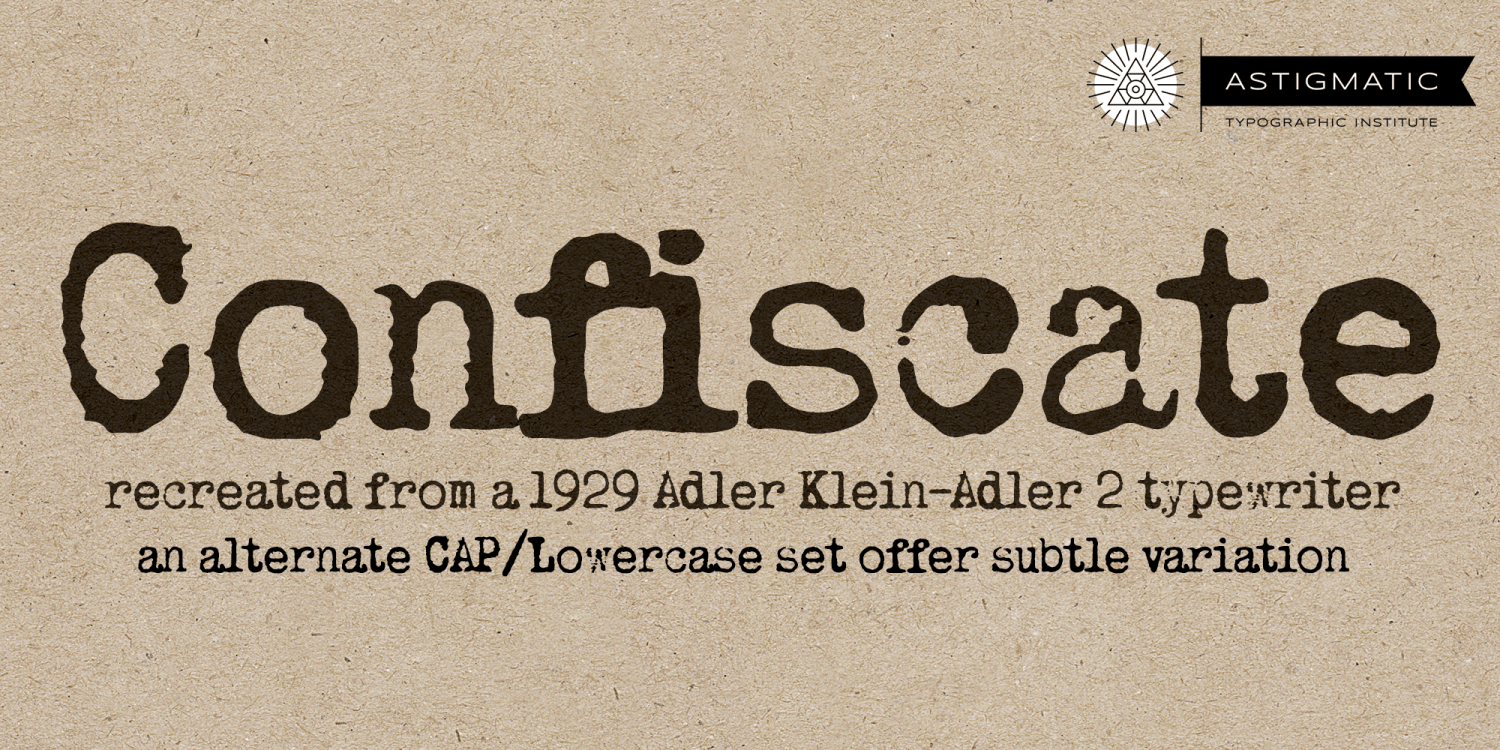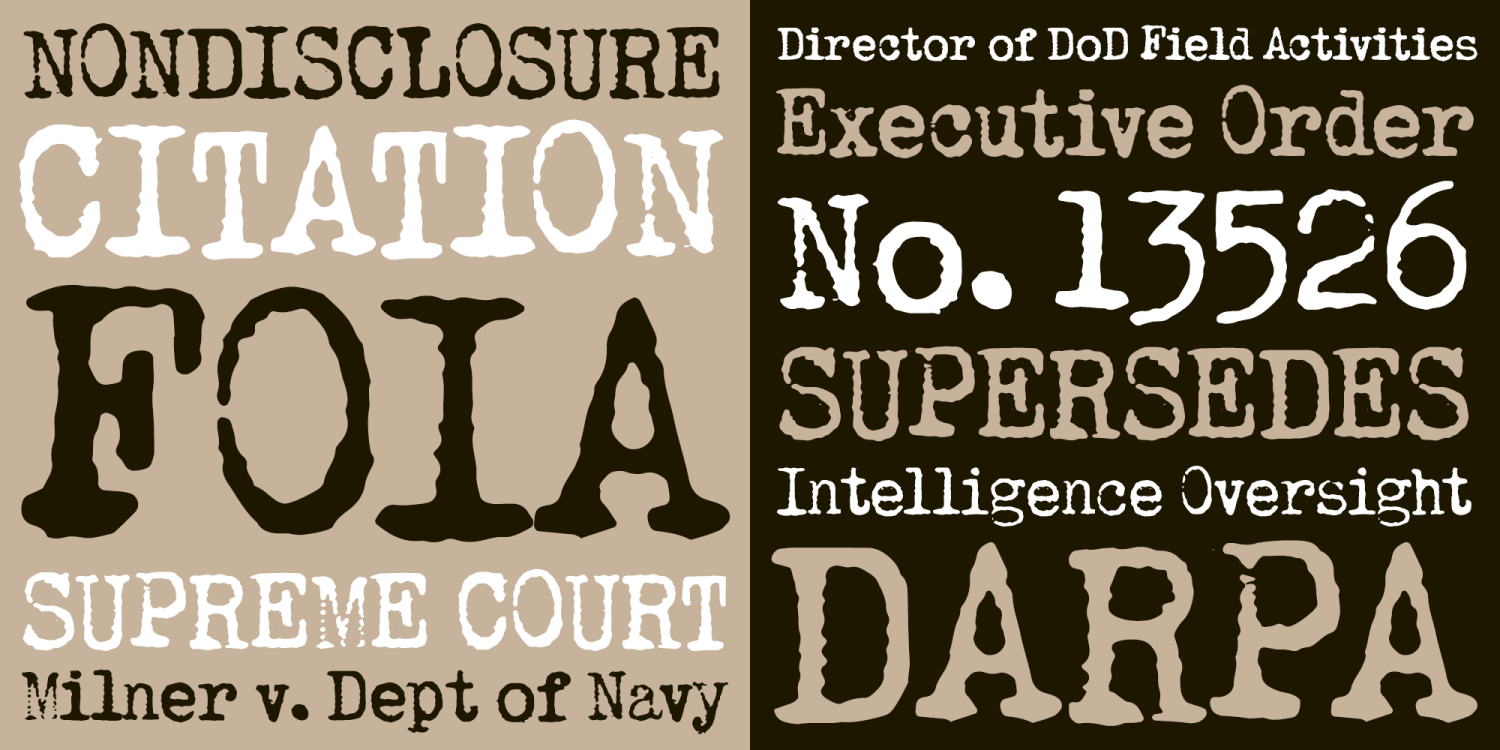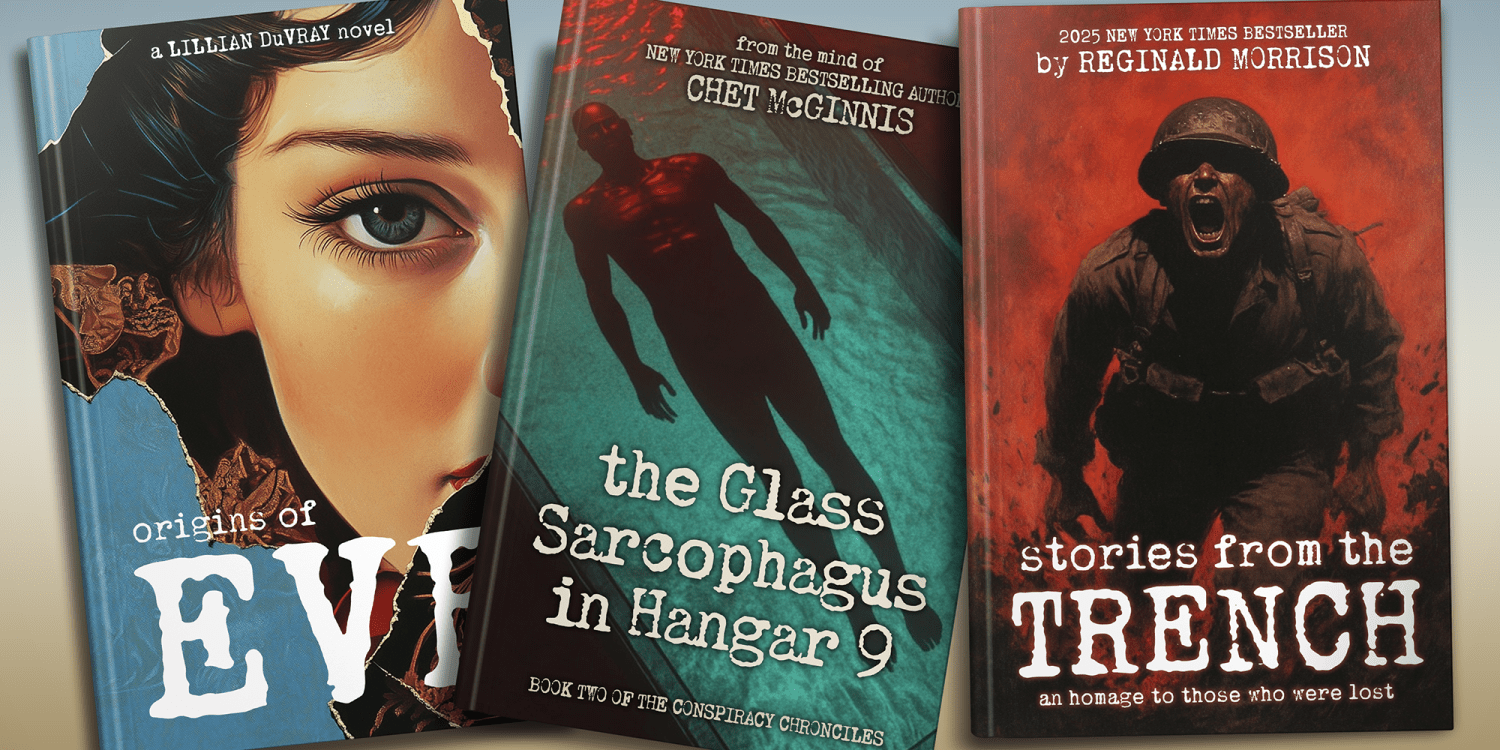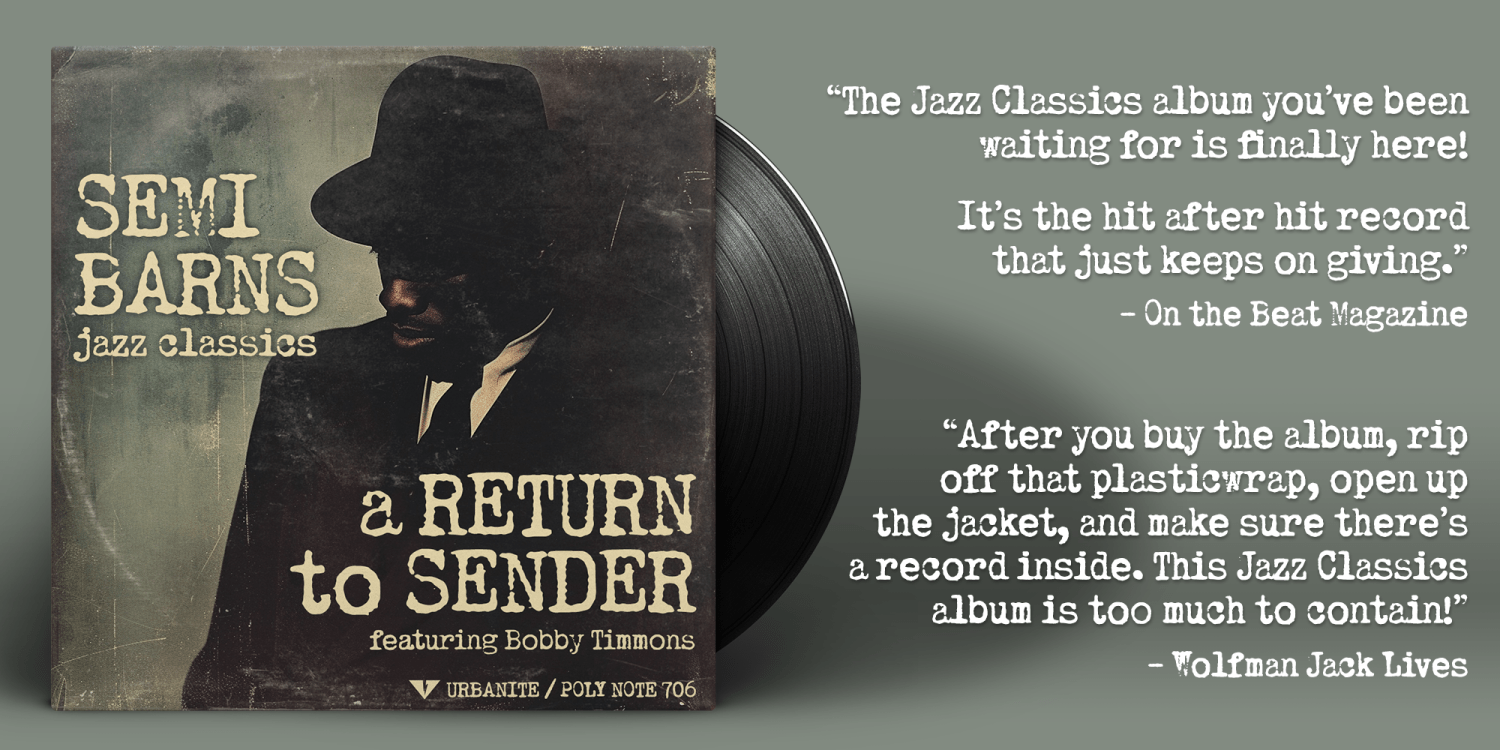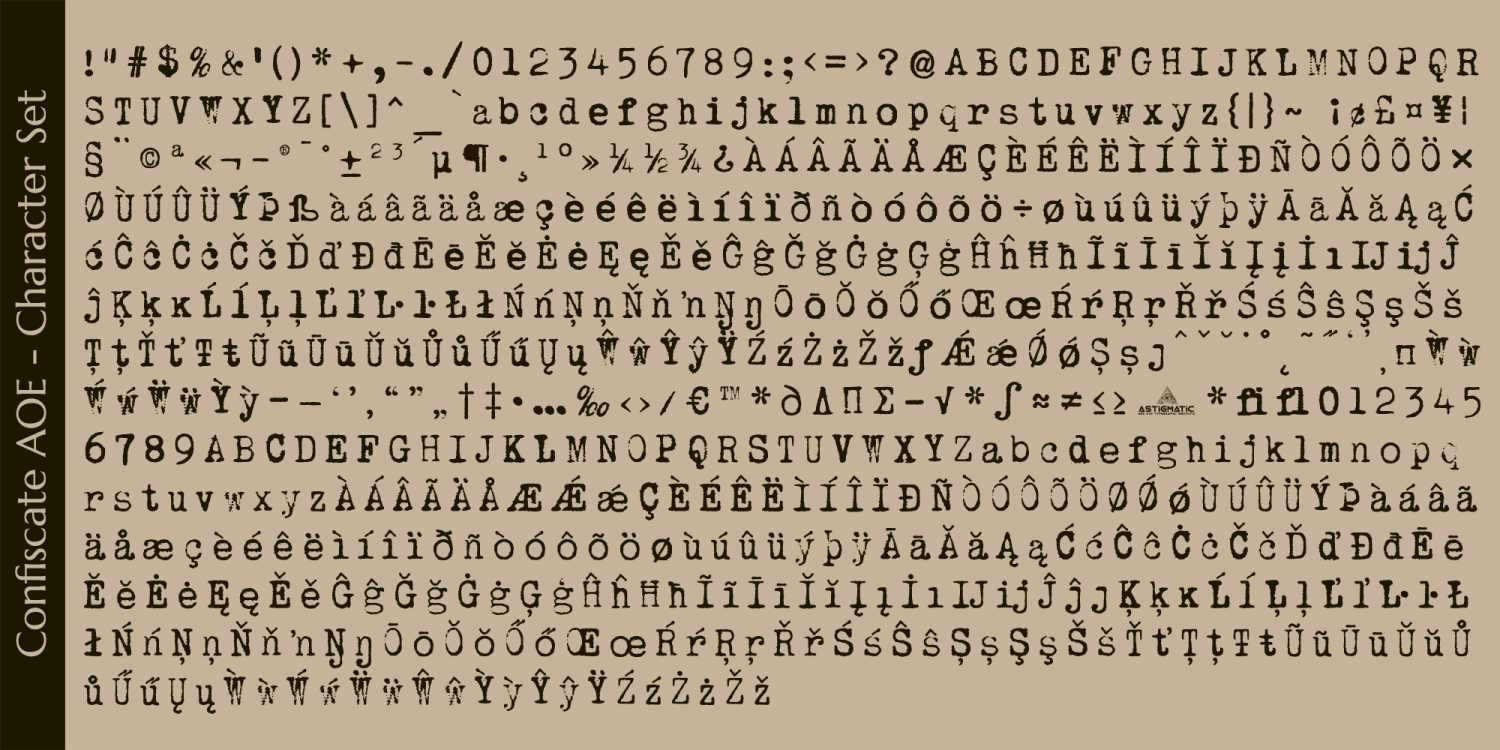
Confiscate AOE
Confiscate AOE brings the unique style of the 1929 Adler Klein-Adler 2 German-Finnish vintage typewriter keyset to the digital age. The ephemeral warmth and tactility of vintage antique typewriters never grows old to me, primarily because of their unpredictable "grunge" results that were a mix from the force of keystrokes to the wear of the ribbon and paper texture. Confiscate AOE has a full caps and lowercase alternate set accessible by turning on Stylistic Alternates. It also appears when most double letter combinations are typed (swapping the second character for the alternate).
Antique typewriters are incredible, but they aren't something easily accessible to everyone, nor do most people want to fiddle with white out edits and the like. That's why typewriter fonts that capture the flavor of vintage typewriters are a no brainer (convenient and easily editable). I hope you enjoy playing with it just as much as I had fun making it.